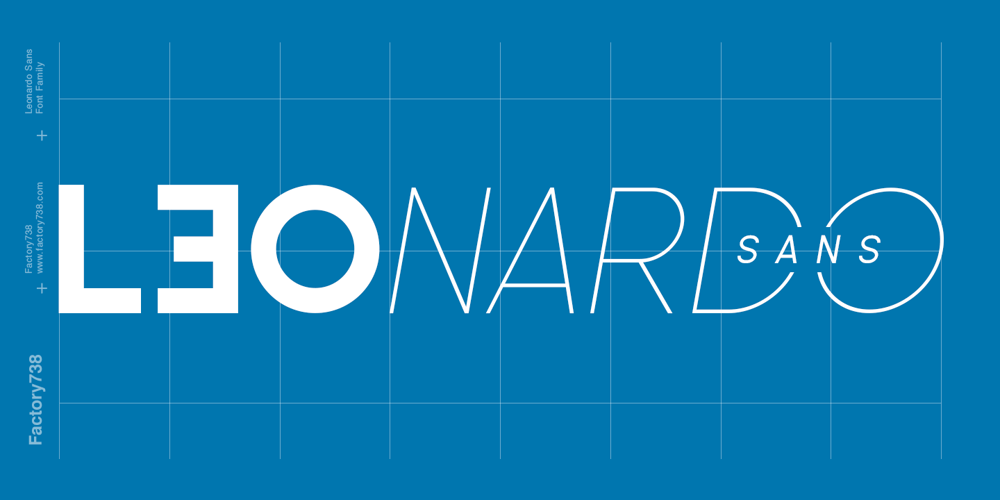
Leonardo Sans
Leonardo Sans font
Leonardo Sans Font Family was designed by Wahyu Rahmawan and published by Factory738. Leonardo Sans contains 20 styles and family package options. Leonardo Sans is a modern sans serif with a geometric touch. It comes in 10 weights, clean and modern caps, thereby creating more variability. Designed with powerful opentype features in mind. Each weight includes extended language support, fractions, tabular figures, arrows, ligatures and more. Perfectly suited for graphic design and any display use. It could easily work for web, signage, corporate as well as for editorial design. 10 Weights (Thin, UltraLight, Light, Regular, Medium, SemiBold, Bold, ExtraBold, Black, Heavy) Oblique font is available Numbers & Punctuation Extensive Language Support Thanks for looking, and I hope you enjoy it.Check out Newgate which is a great pair for Leonardo Sans.